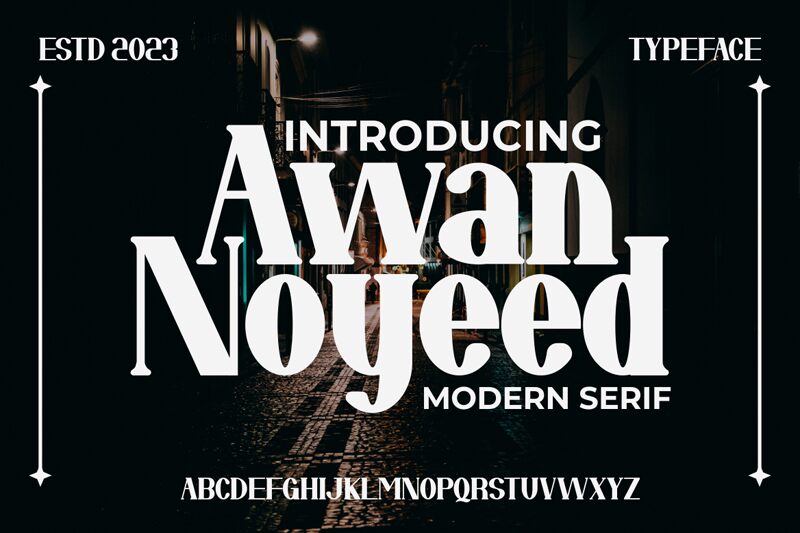
Awan Noyed font family by Gilang Ternadho is a modern serif typeface featuring a rounded, sturdy appearance. This free font family has a contemporary and sophisticated personality that elegantly combines traditional artwork with modern design standards and readability criteria.
Elevate your design projects with its unique forms that perfectly fit wedding invitations, business cards, posters, branding projects, magazines, covers, packaging boxes, and prints. Use it for digital environment typography in websites and mobile apps where a professional look is desired to convey premium value.